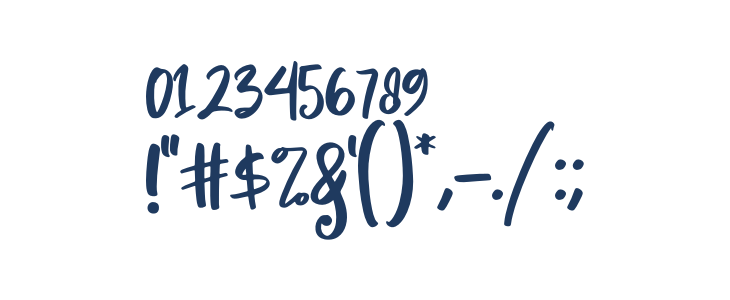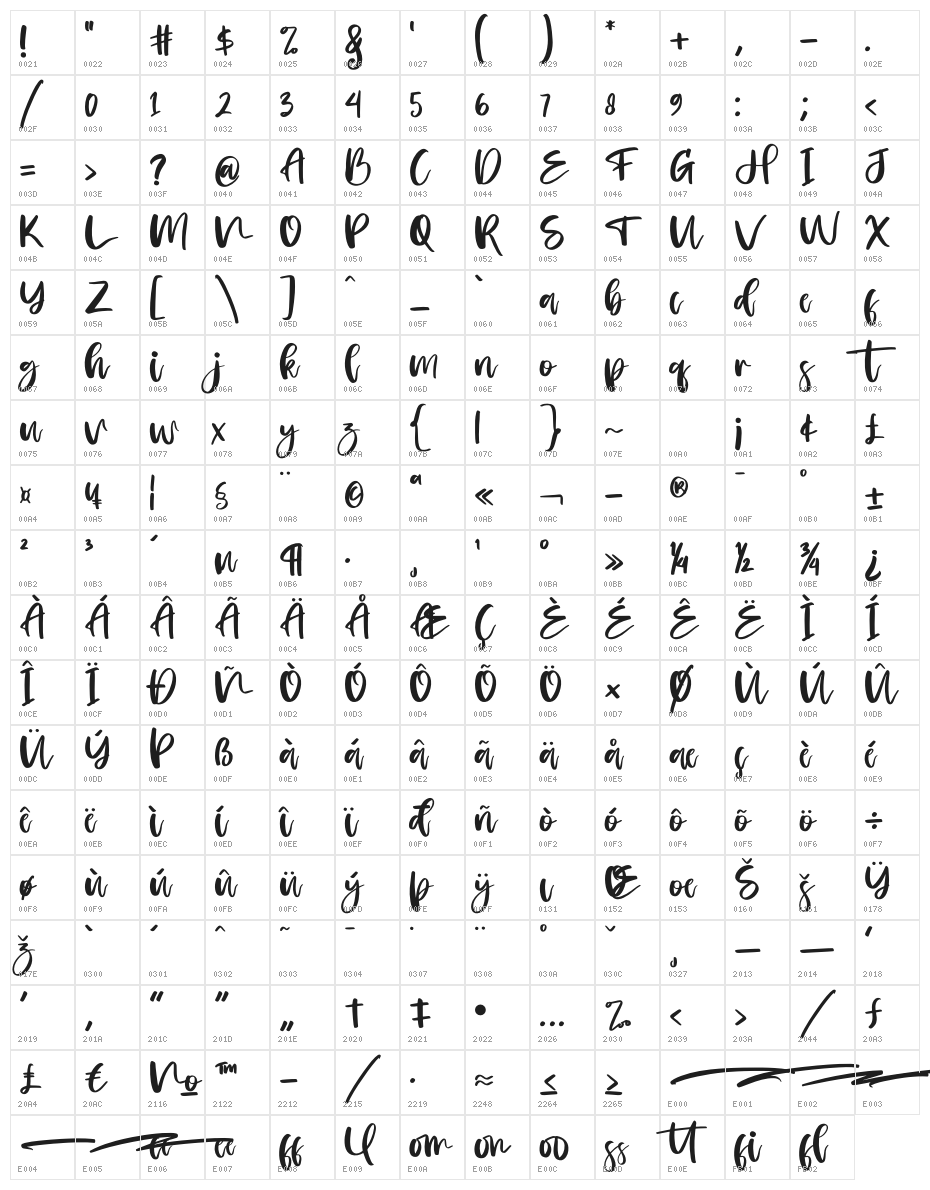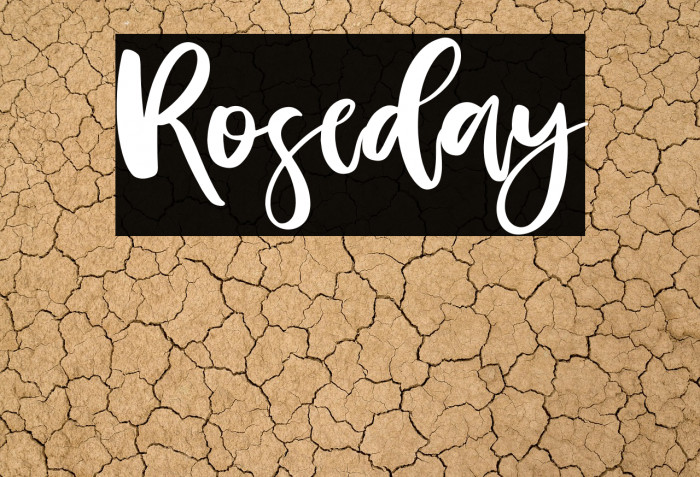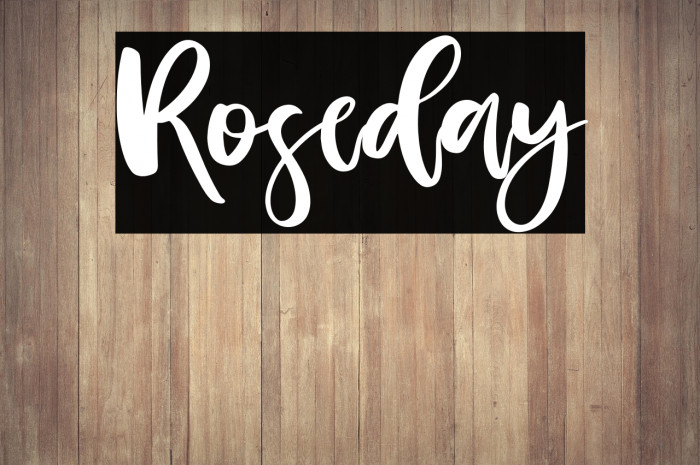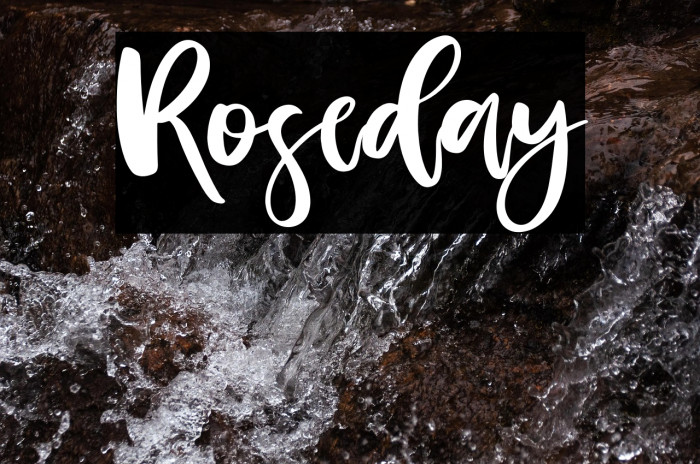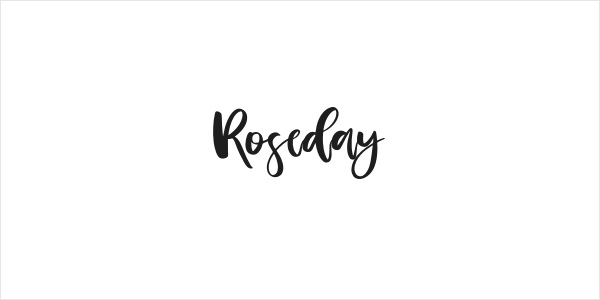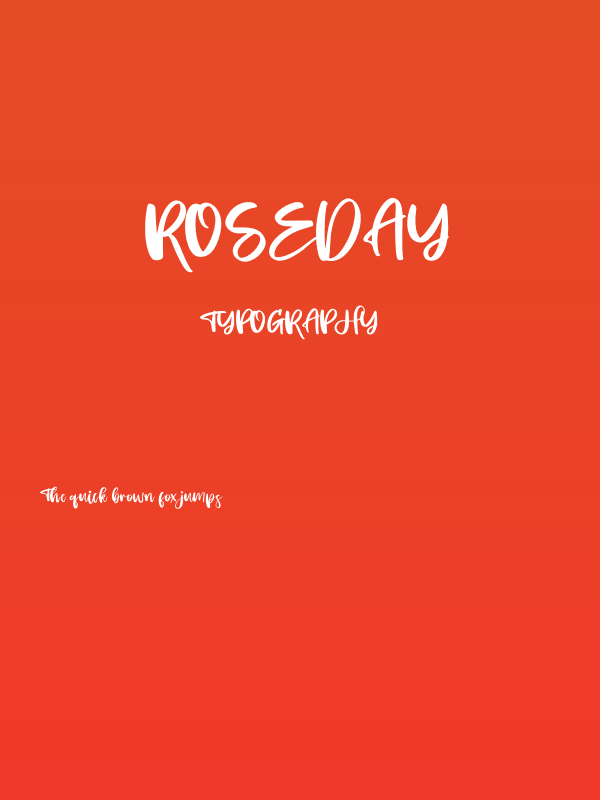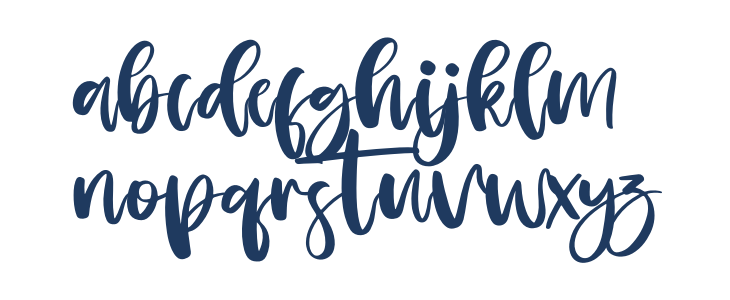
Roseday Font
Roseday Description
This font features a lively and expressive handwritten style, characterized by its fluid and dynamic strokes. The letters are interconnected with a natural flow, giving it a personal and artistic touch. The uppercase and lowercase letters maintain a consistent style, with some playful variations in the curves and loops. The numerals and special characters are crafted to match the overall aesthetic, ensuring a cohesive appearance. This font exudes a sense of creativity and spontaneity, making it ideal for projects that require a personal or artistic flair.
| Use Case | Logos, Headlines, Artistic projects |
| Proposed Projects | Ideal for greeting cards, invitations, branding, and social media graphics. |